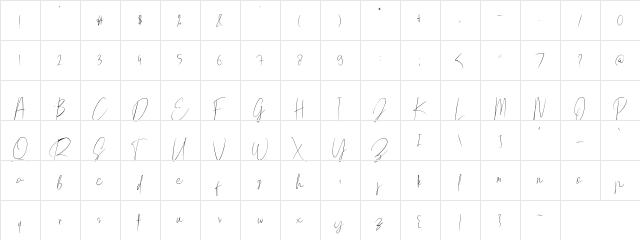
Mellati Script DEMO Regular
| Foundry | Muhammad Fathi Al Ghazi |
| Designer | Muhammad Fathi Al Ghazi |
Design Context for Mellati Script DEMO Typeface
Mellati Script DEMO flows with the natural rhythm of handwritten lettering, making it ideal for designs that call for warmth and personal expression.
Font Pairing: Combine Mellati Script DEMO with a simple geometric sans for maximum contrast — the tension between flowing curves and clean structure is a classic typographic pairing.
Pro Tip: Use Mellati Script DEMO for short runs of text — names, titles, or taglines. Extended body copy in script faces tires the eye quickly.